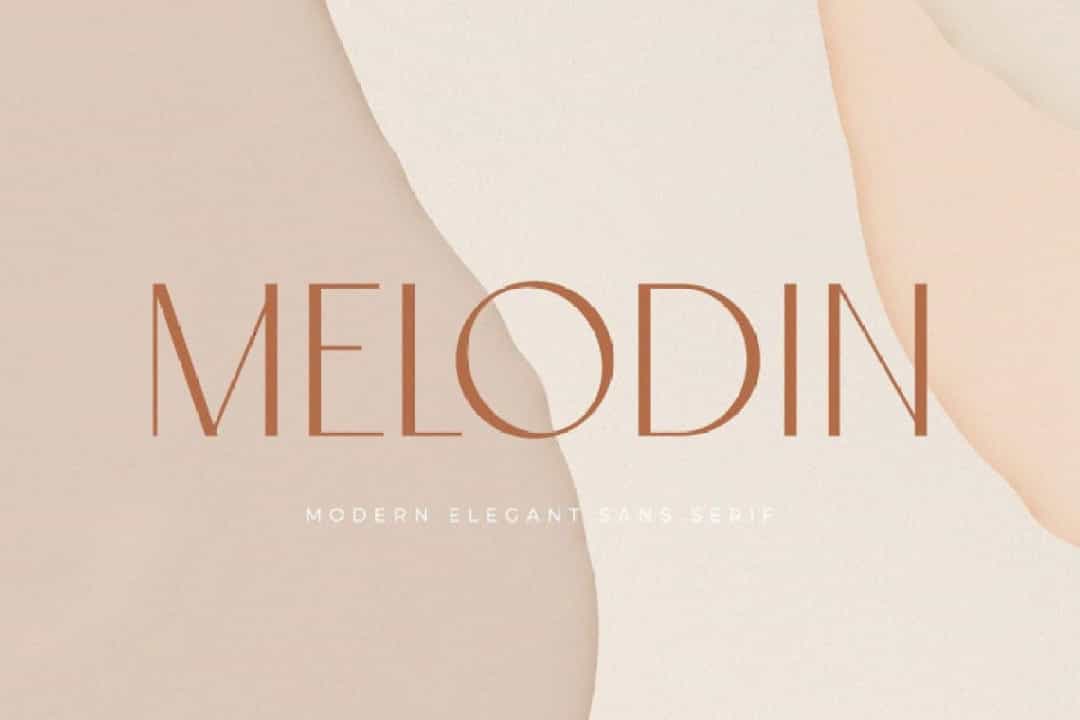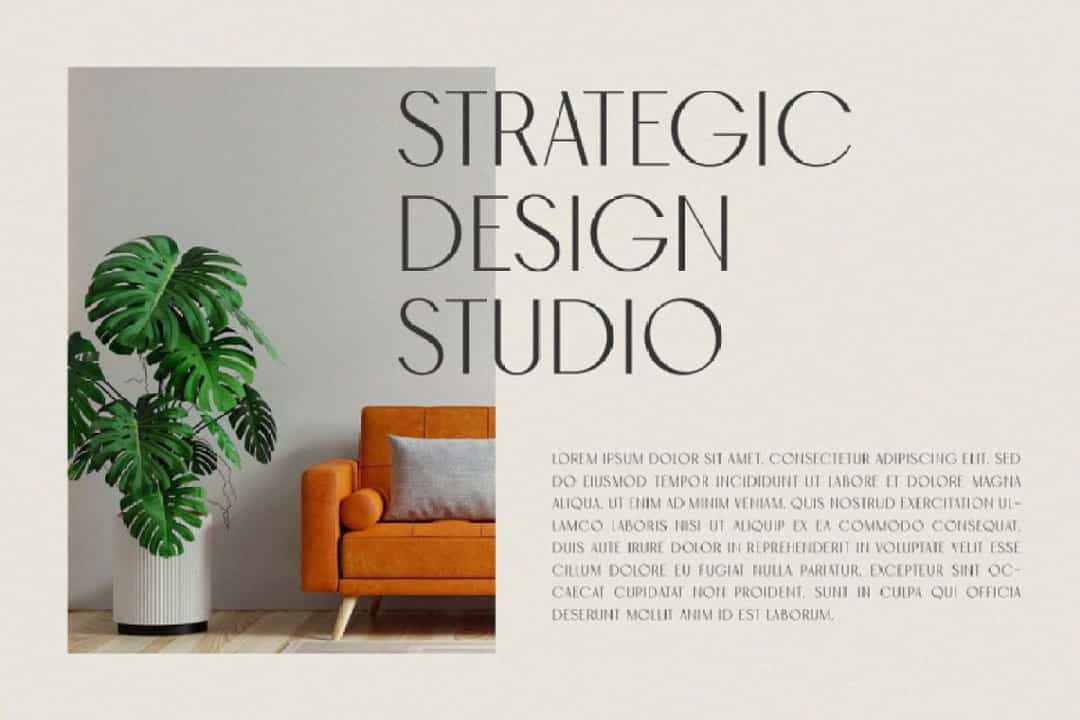
Melodin can be defined as an elegant and modern sans serif font that works well as a display font for logos, headings and branding magazines, packaging for products and invitations. With straight curvatures and straight lines giving each project an additional glimmer of sophistication.